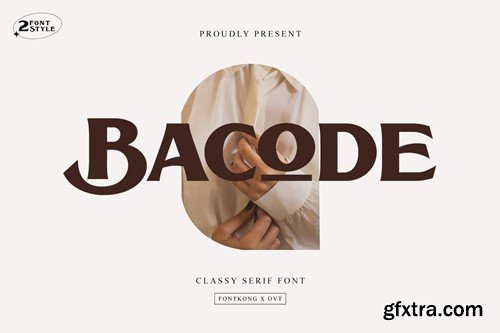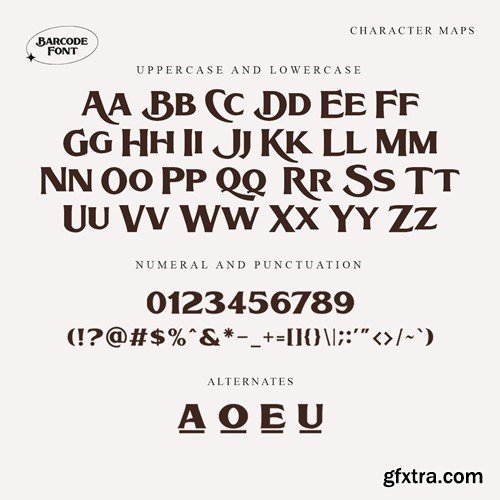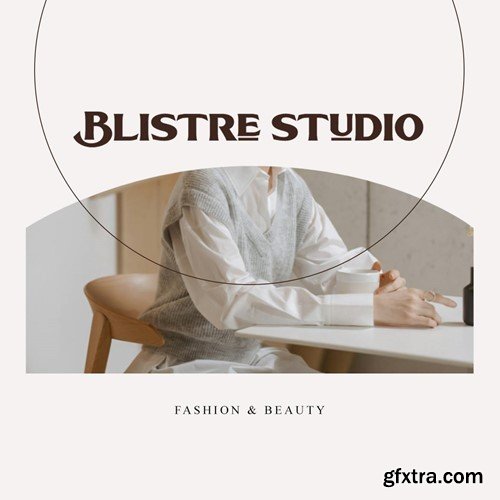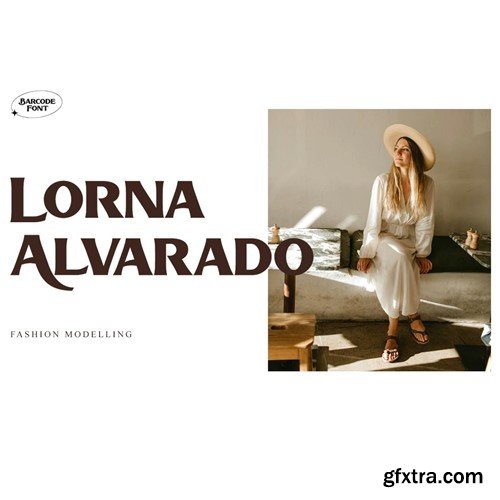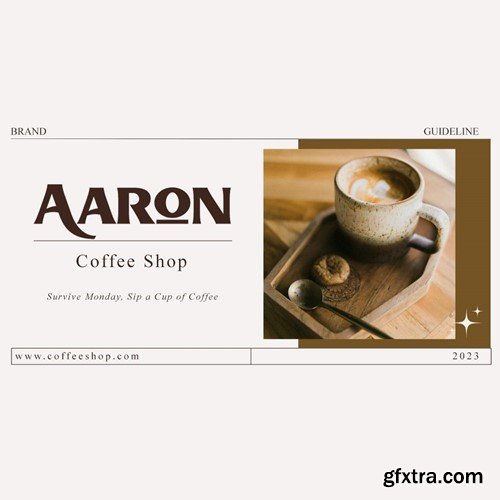
Barcode - Classy Serif Font ETD9J8Z
Bacode - Classy Serif Font Welcome to "Bacode," a classy serif font that encapsulates the timeless elegance of traditional typography with a modern twist. Bacode is expertly crafted for those who appreciate the beauty of classic design in a contemporary context, making it ideal for luxurious branding, sophisticated print media, and ornate editorial work. You will receive the font files in TTF, OTF, and WOFF formats Bacode's design features refined serifs and smooth transitions, providing a balanced and harmonious look that enhances readability. This font is perfect for creating an upscale and inviting atmosphere in any project, from wedding invitations and boutique branding to annual reports and magazine spreads. It offers a full set of uppercase and lowercase letters, numerals, punctuation, and broad language support, ensuring comprehensive usability across various languages and regions. Whether your project aims to convey luxury, tradition, or elegance, Bacode brings a touch of sophistication and depth. Its versatile character set and classic appeal make it a staple for any designer looking to infuse their work with a sense of high-quality craftsmanship and stylistic longevity. Bacode is your go-to serif font for achieving a polished and timeless look in your designs.